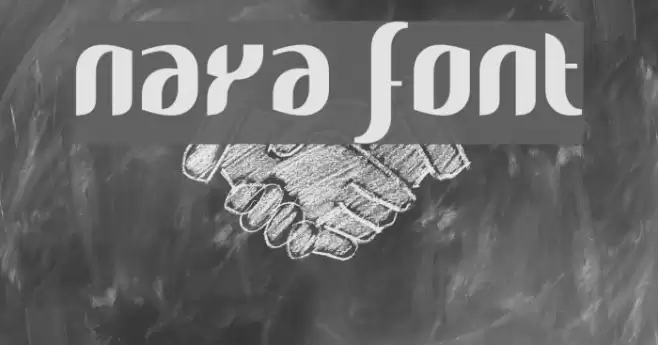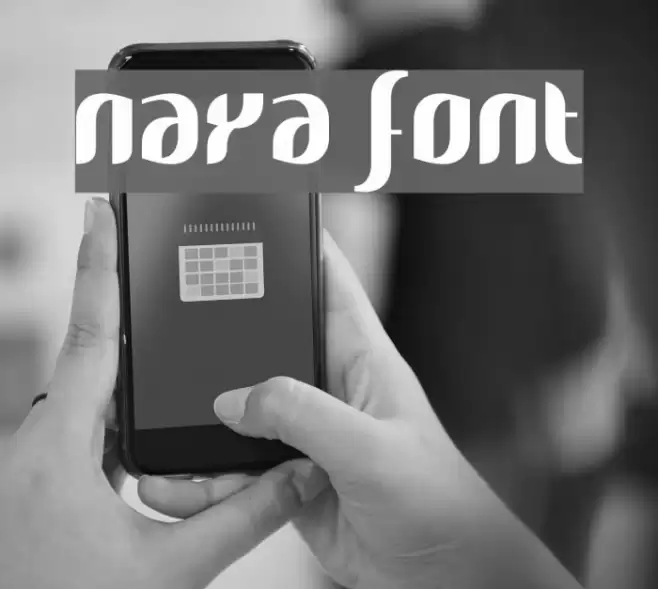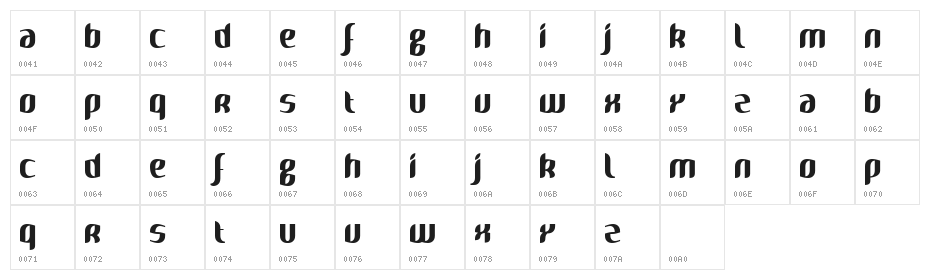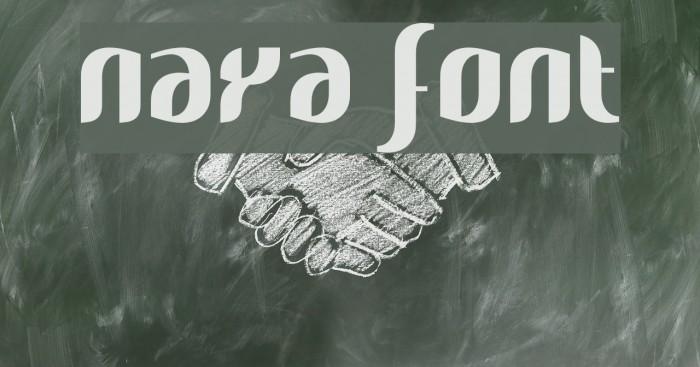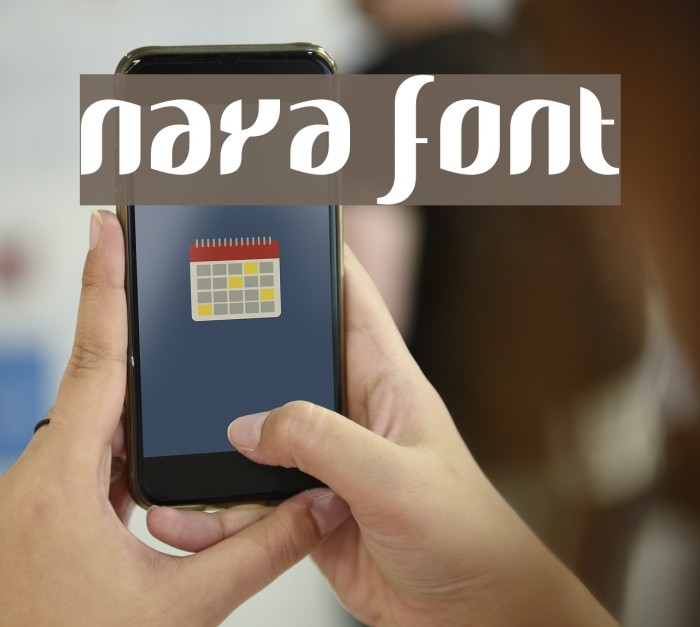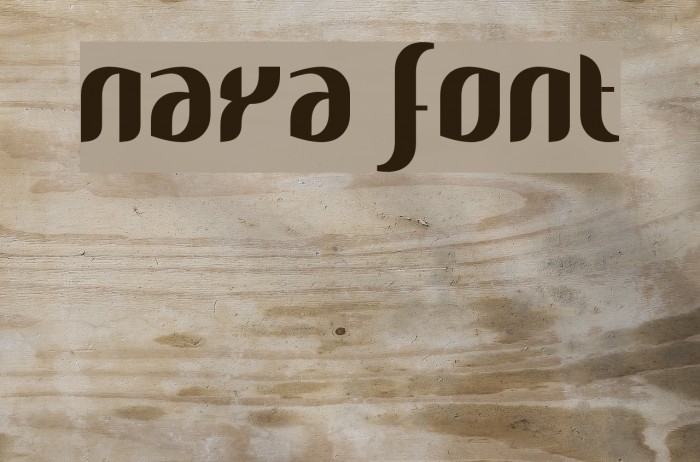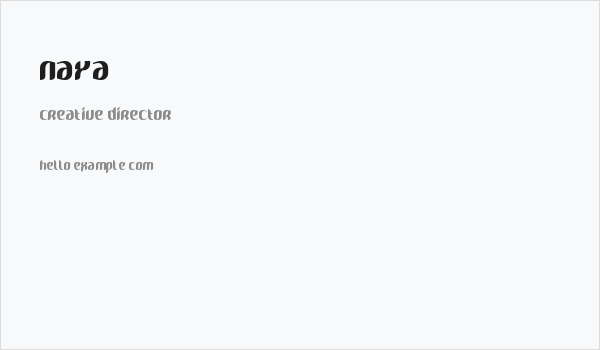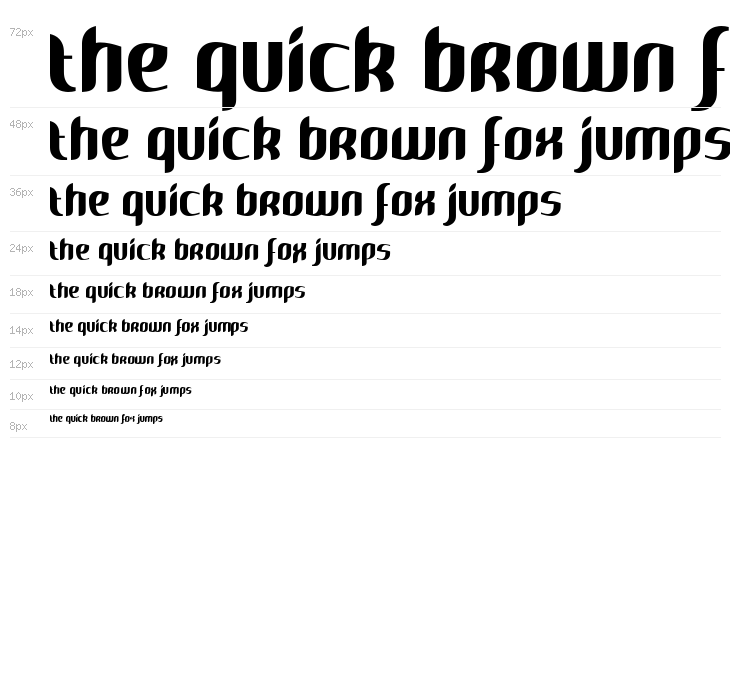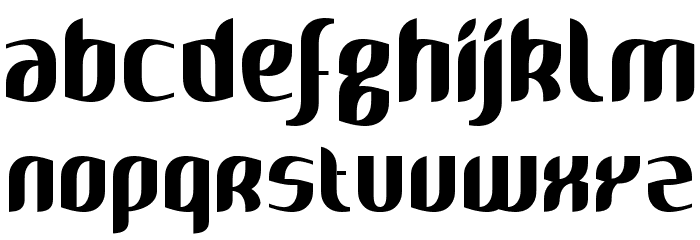
Naya Font
Naya Description
This font features a bold and dynamic style with a modern twist. The characters are crafted with a unique blend of sharp angles and smooth curves, creating a striking visual impact. The design incorporates a high contrast between thick and thin strokes, enhancing its bold appearance. The letters are slightly condensed, giving a compact and cohesive look. This font stands out with its artistic flair, making it suitable for eye-catching designs. The overall style is contemporary, with a hint of futuristic elements, making it versatile for various creative applications.
A bold, modern font with high contrast and artistic flair from Crazy fonts.
- Proposed Projects: Ideal for branding, posters, headlines, and digital artwork.